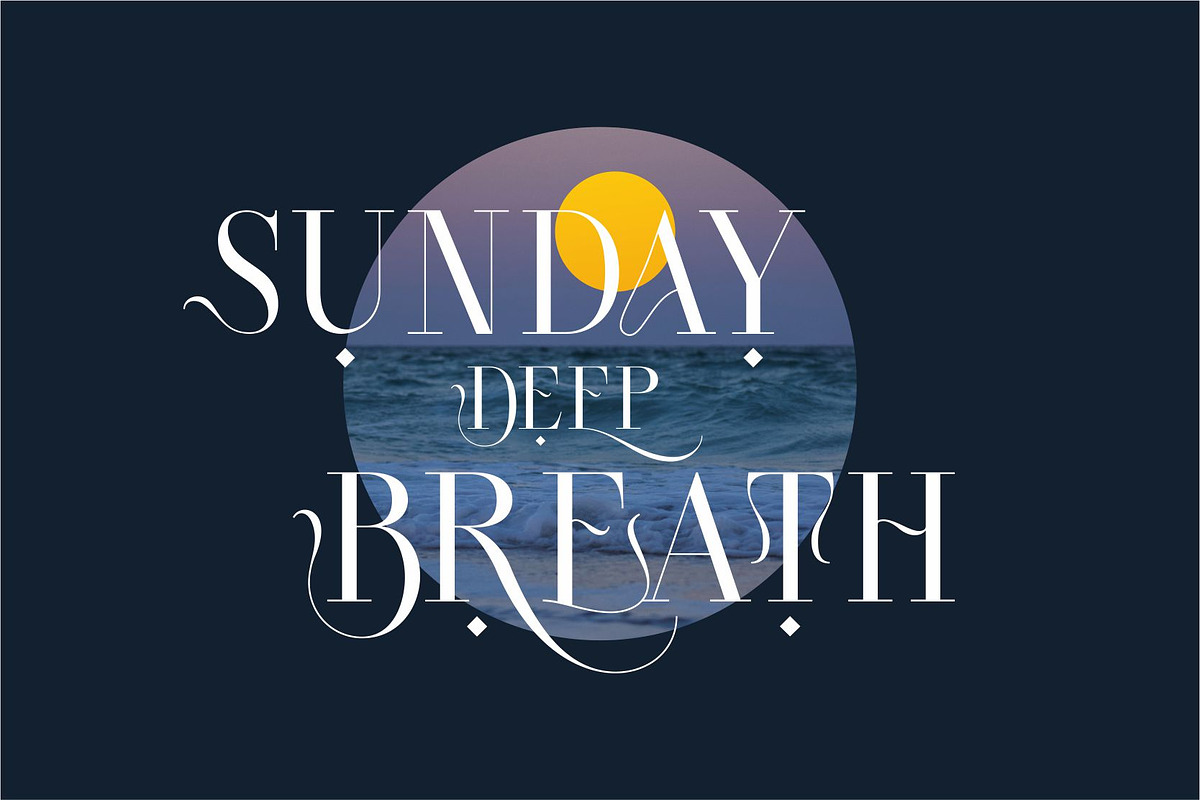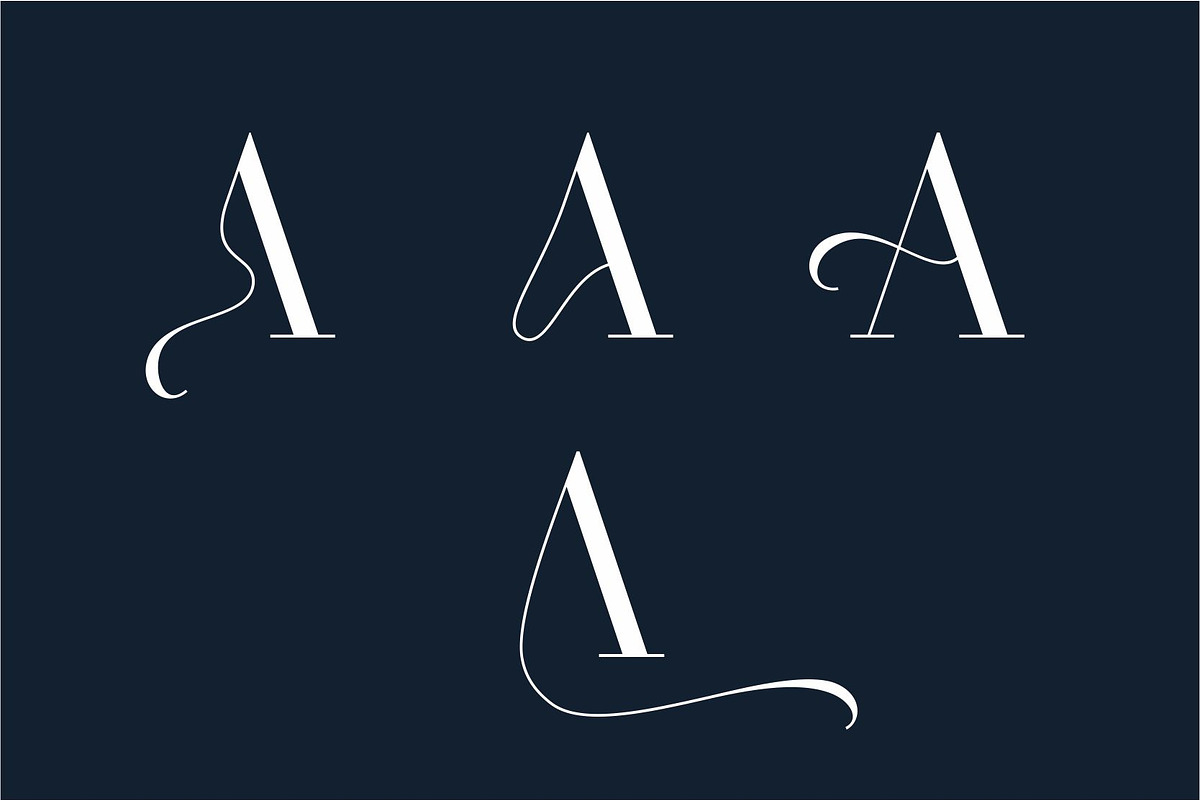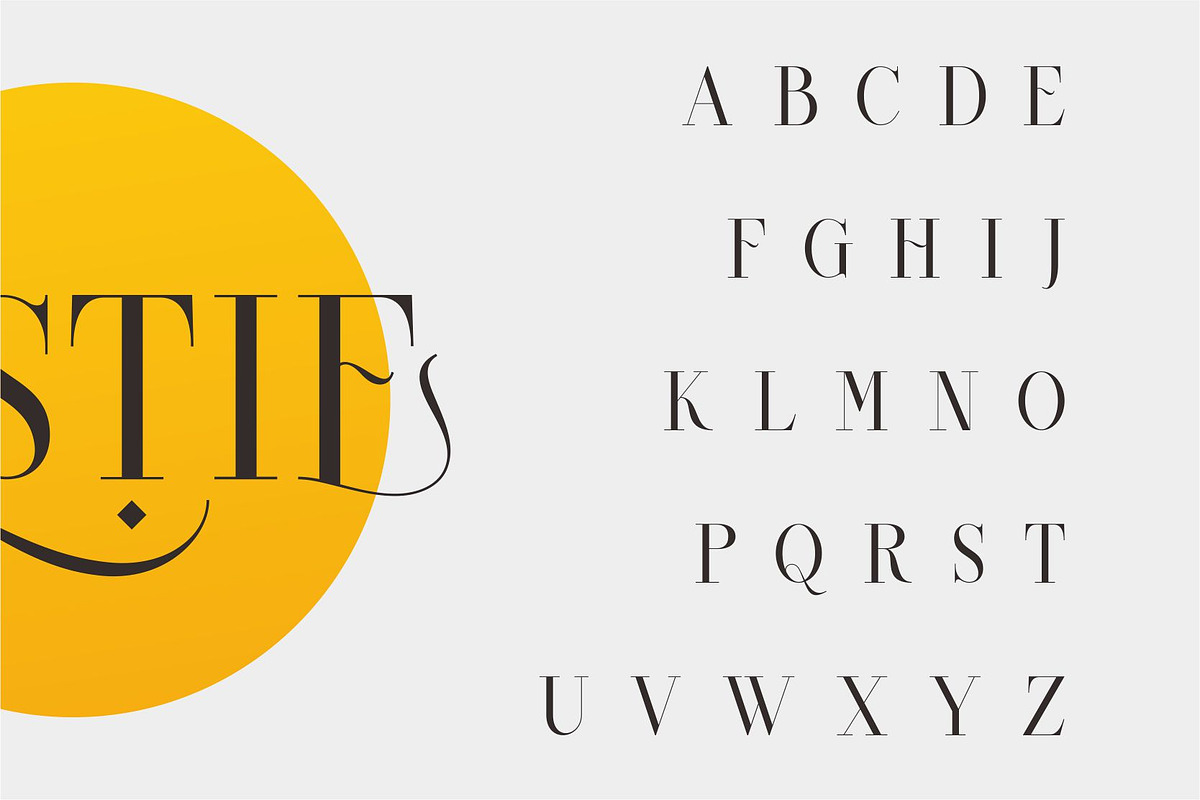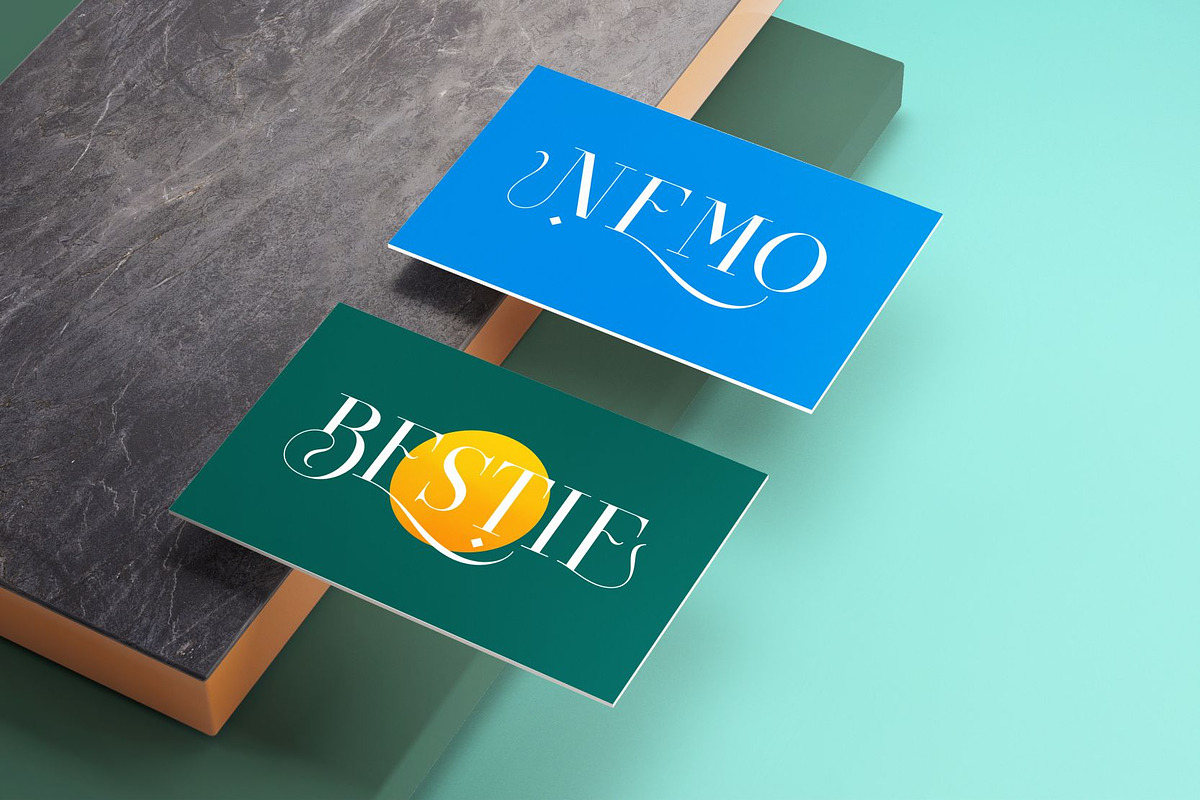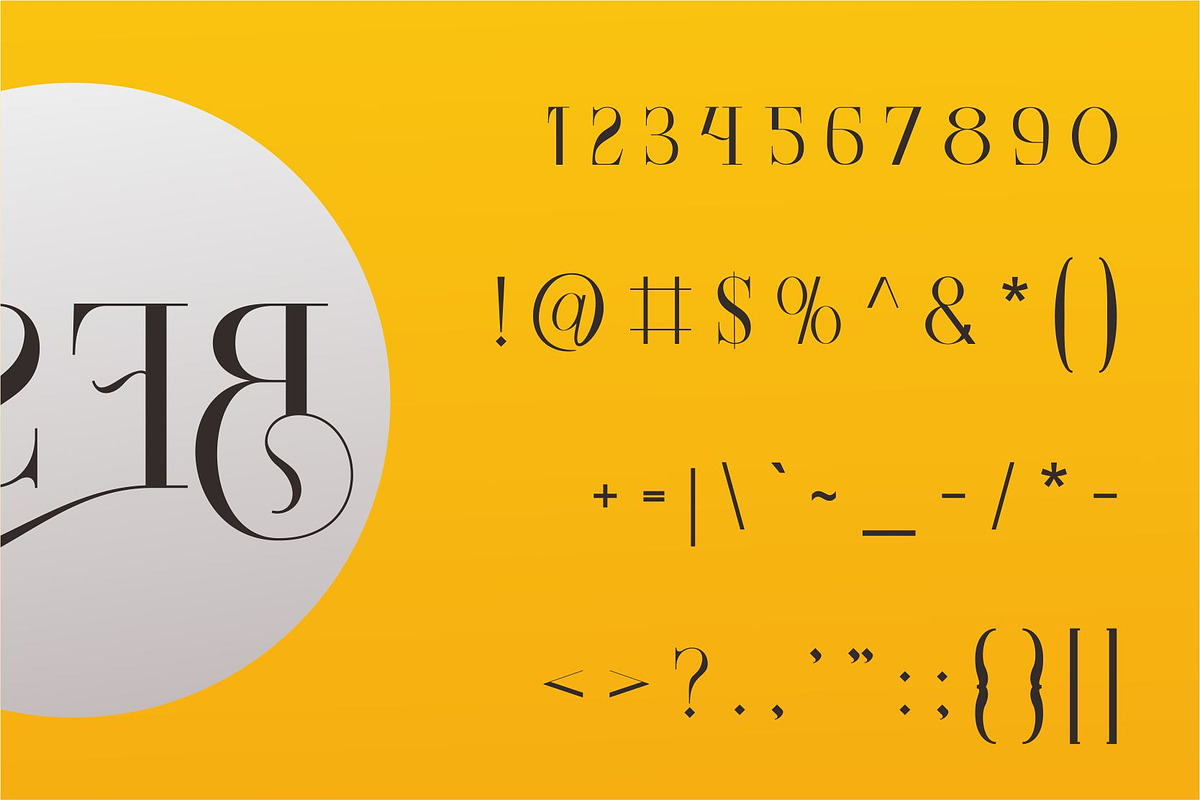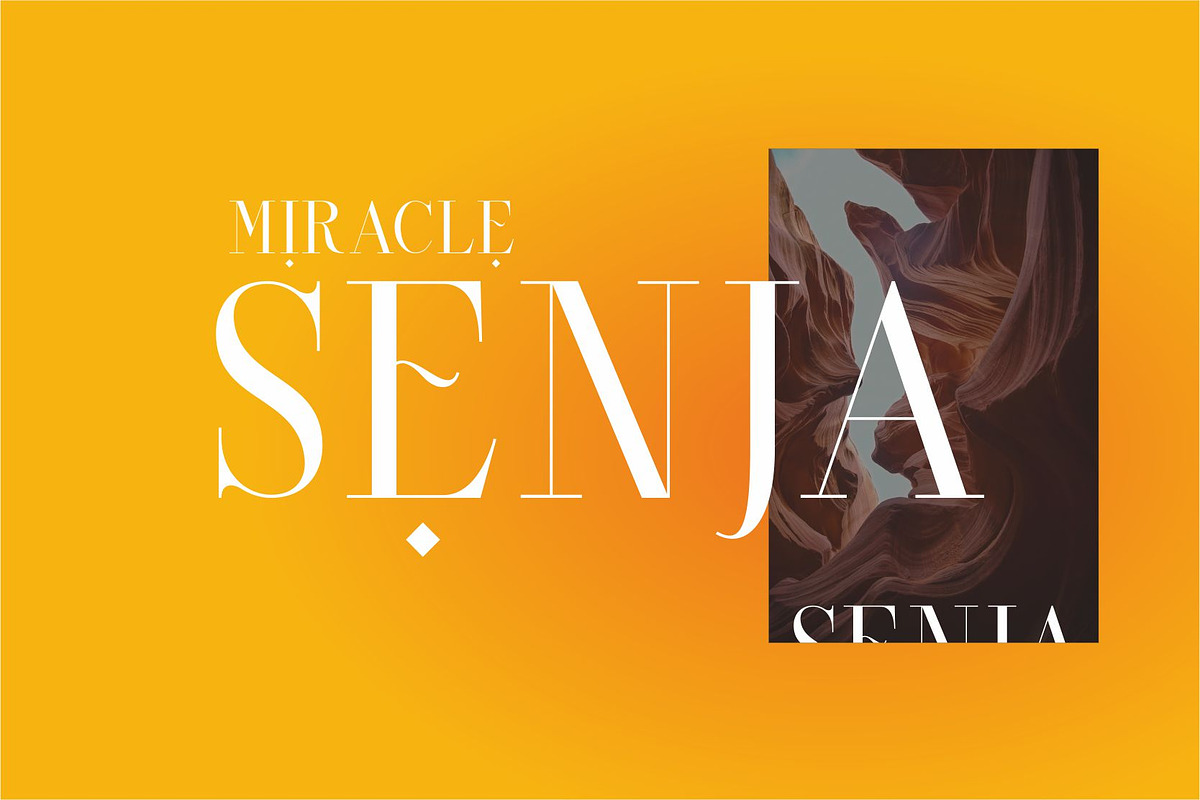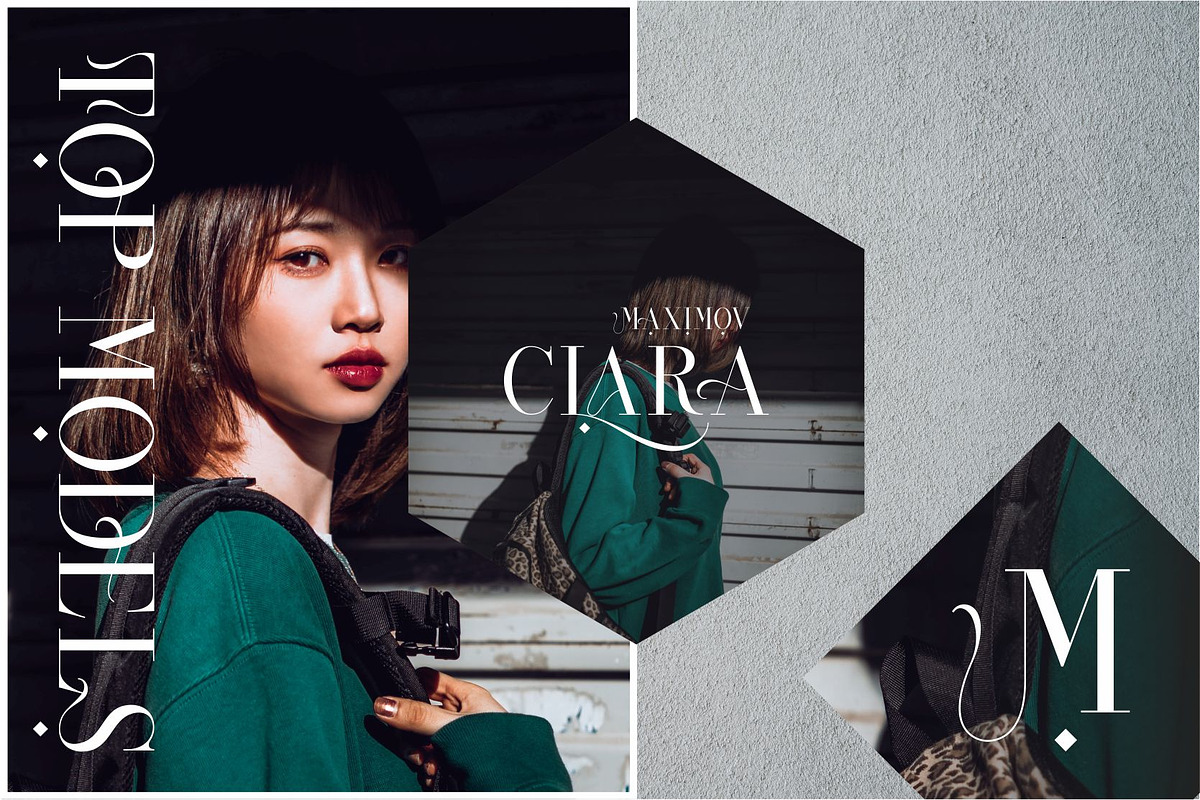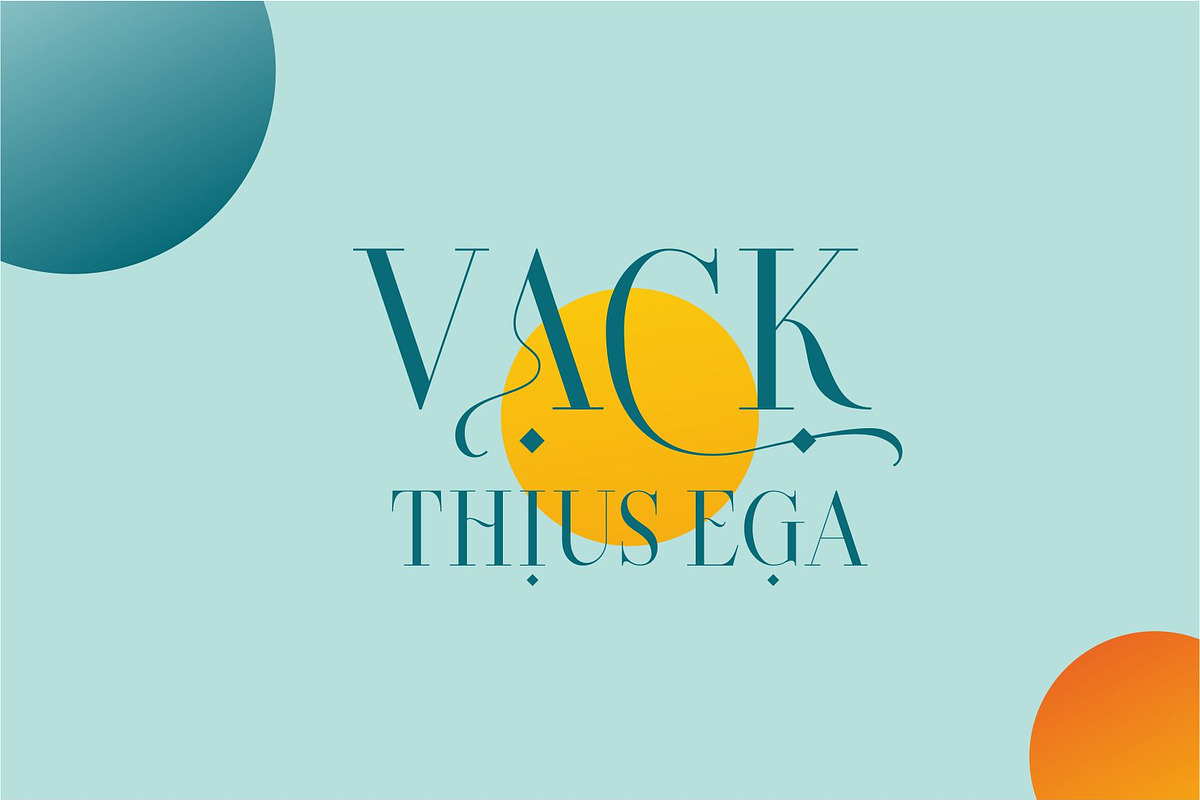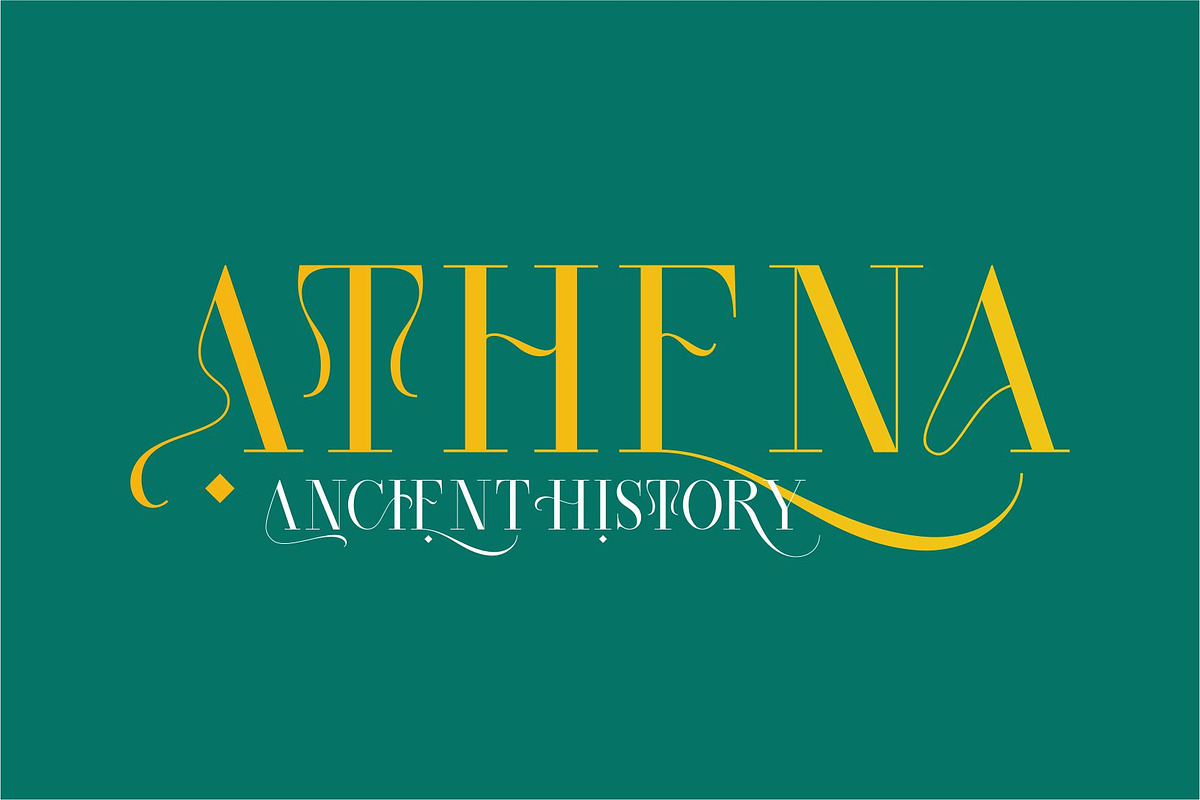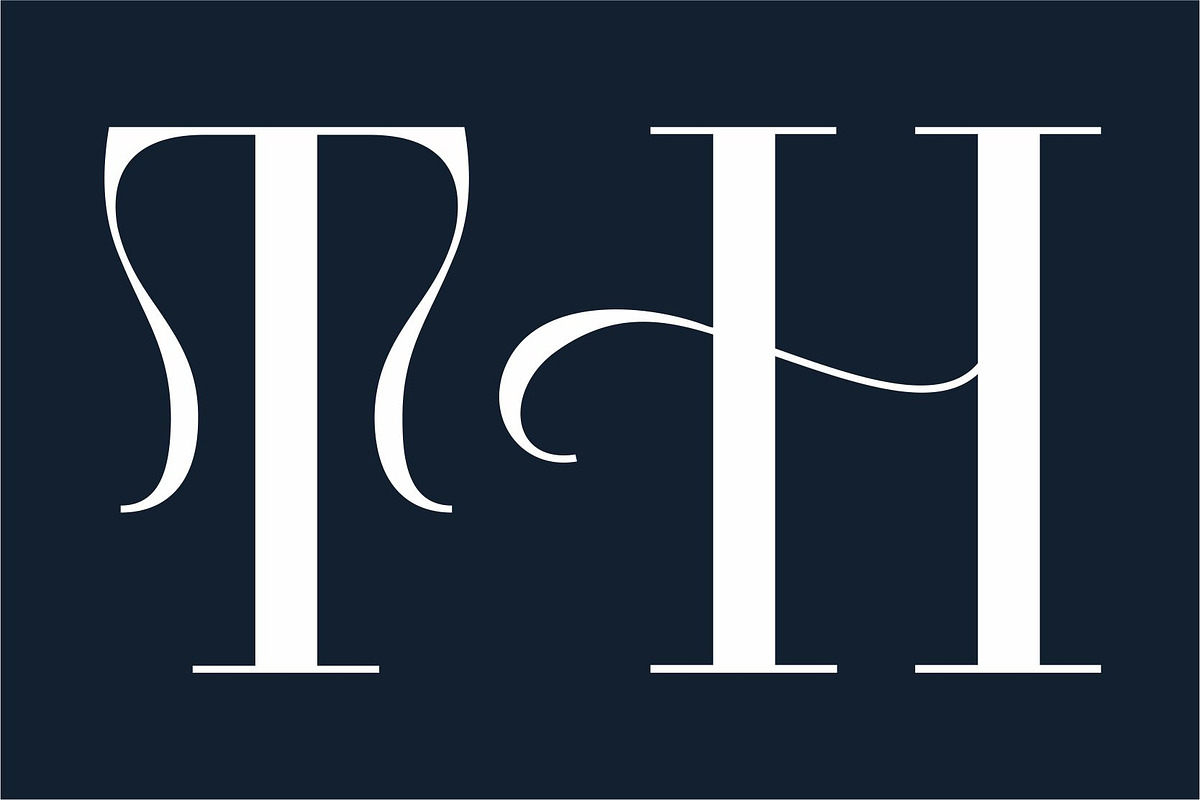
Bestie | Modern Stylish
Bestie fonts includes uppercase letters, numerals, a large range of punctuation. Serif font with modern stylish style with alternates. Created for poster, web design, branding, illustrations, badges and some other works.